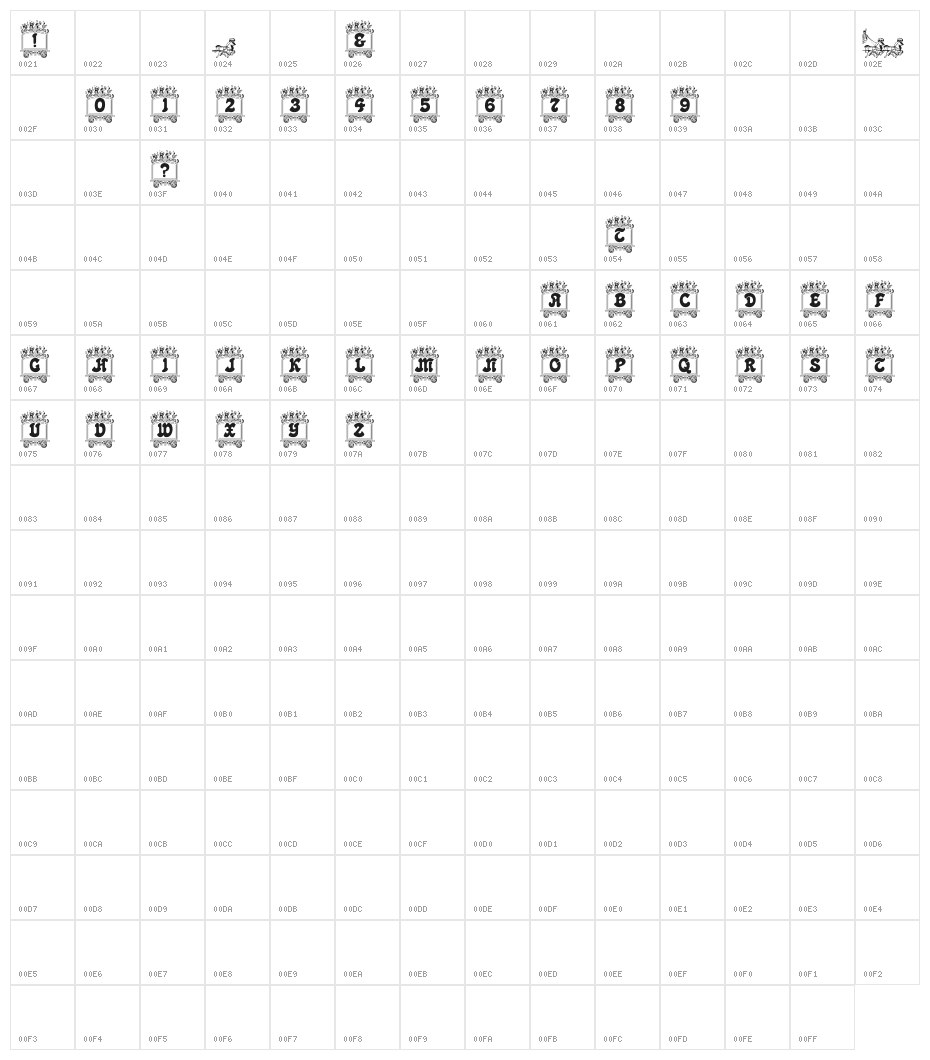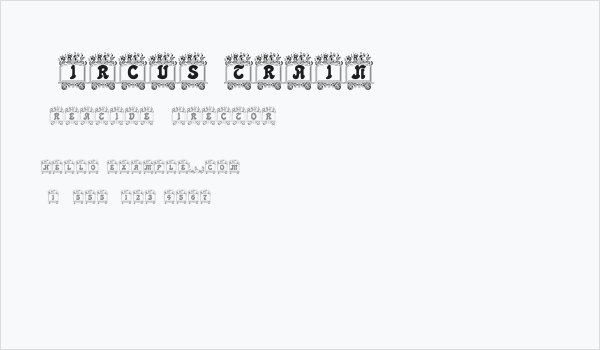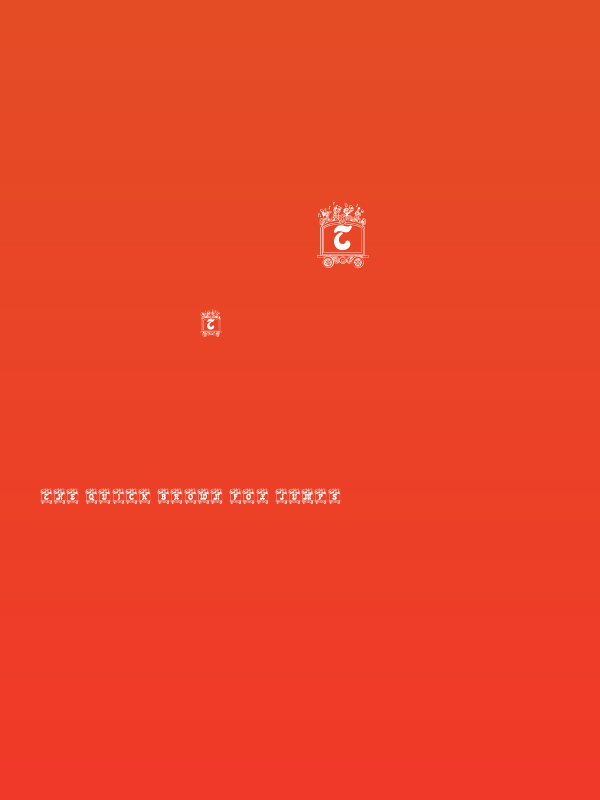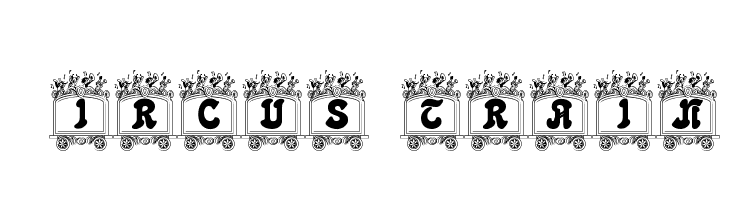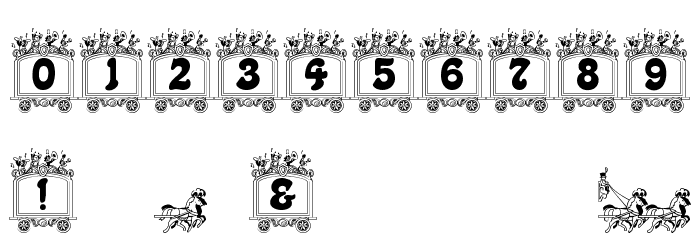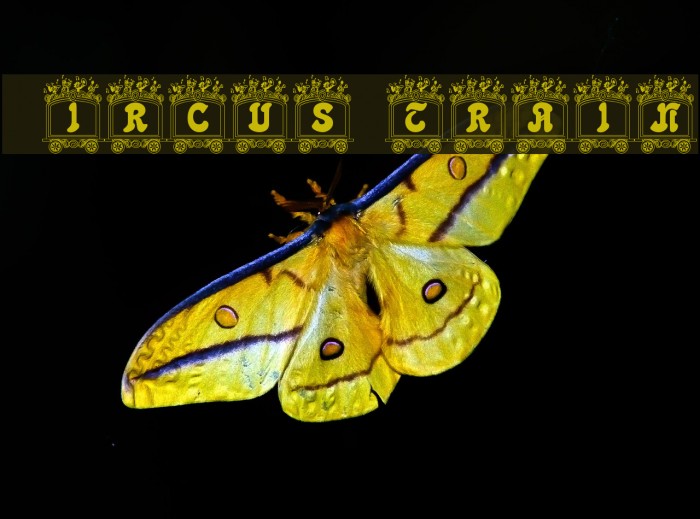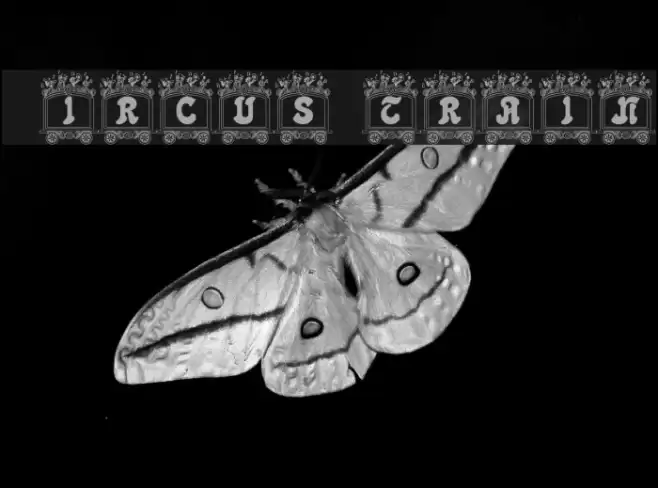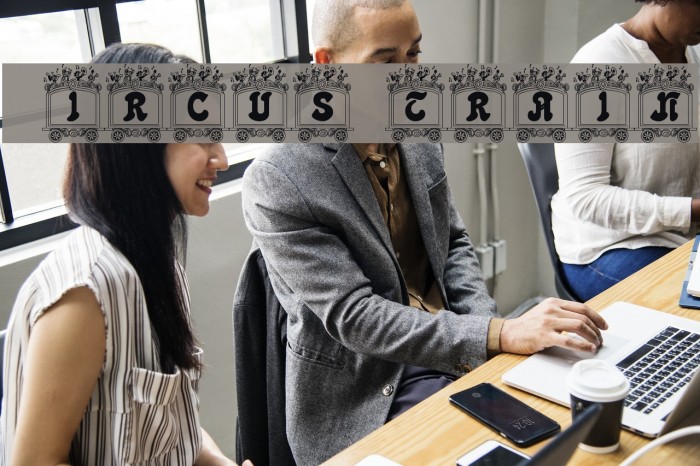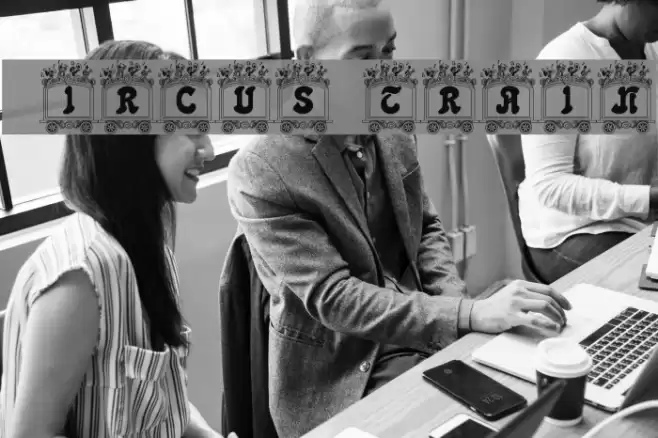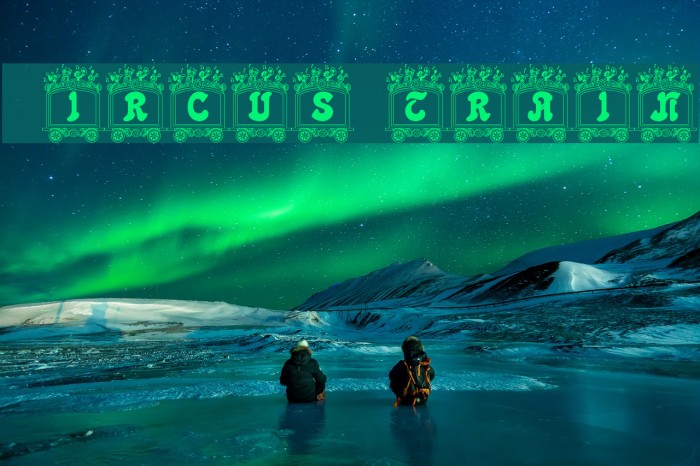
Circus train Font
| Версии | coachman is full stop. for more horses use $$ ;-) |
| Общий стиль | Vintage, Decorative |
| Рекомендуемые проекты | Ideal for circus-themed posters, children's book covers, vintage-style invitations, and playful branding projects. |